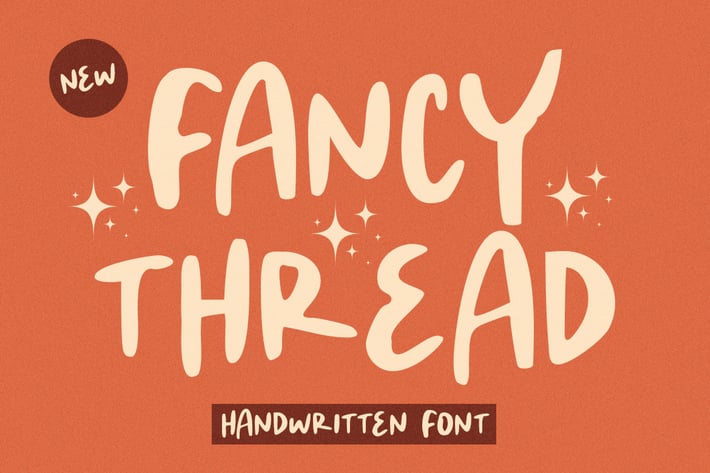
Fancy Thread - Handwritten Font
“Fancy Thread” is a whimsical handwritten font that captures a delightful, playful spirit. Perfect for quotes, posters, and branding, its charming strokes bring a unique personality to any design. This versatile font effortlessly adds a touch of creativity and fun, making it ideal for eye-catching and memorable projects.